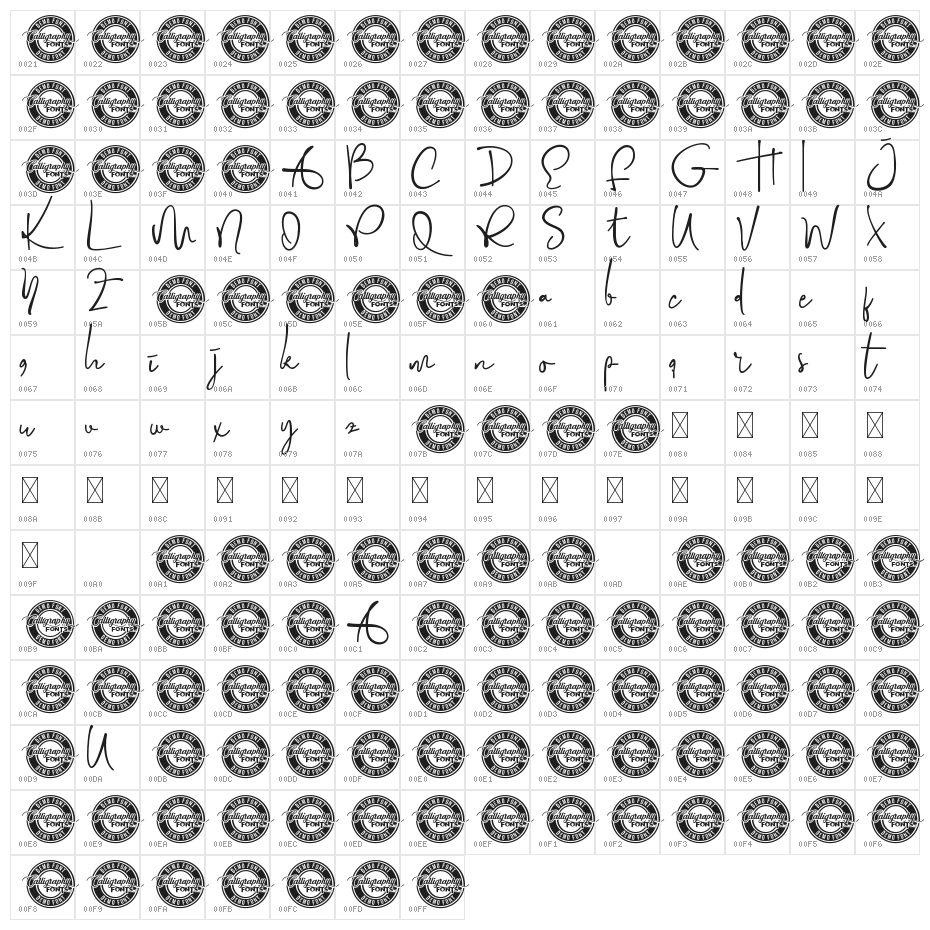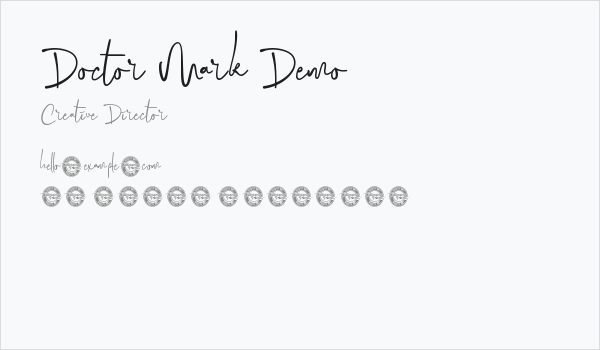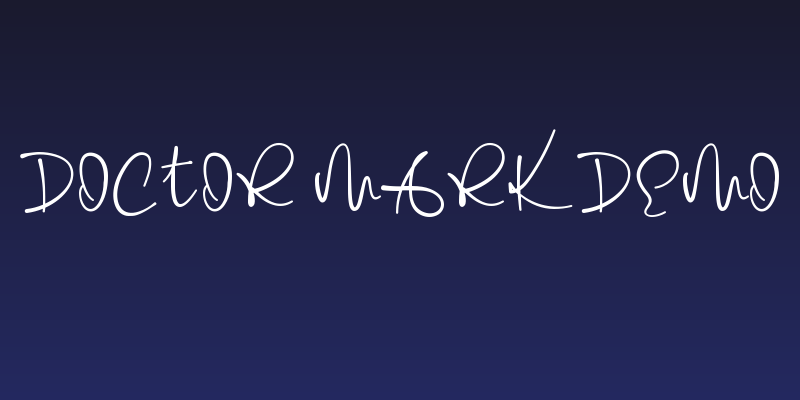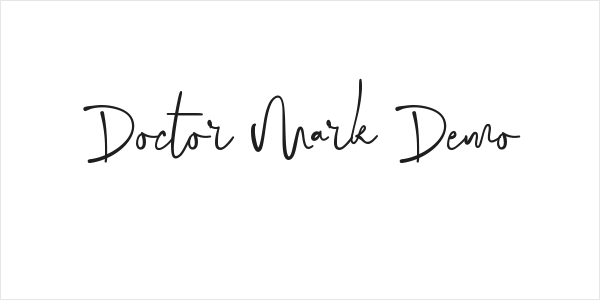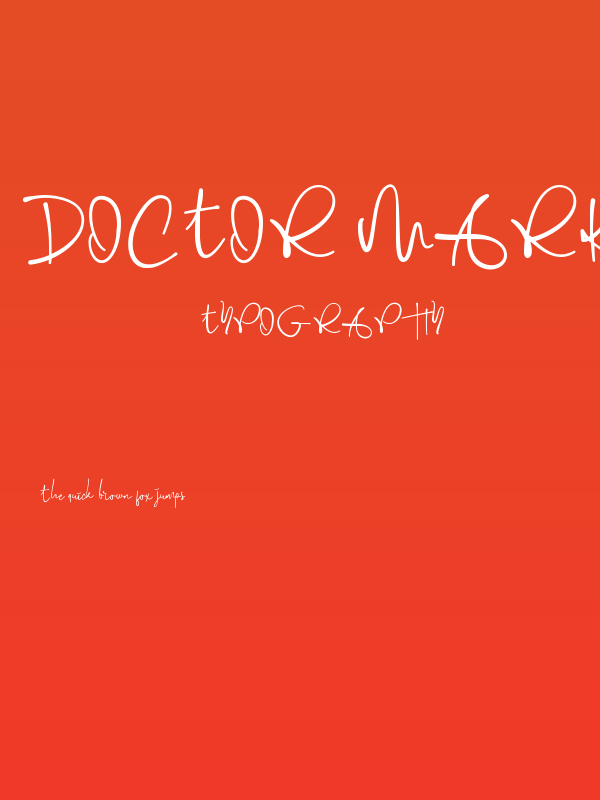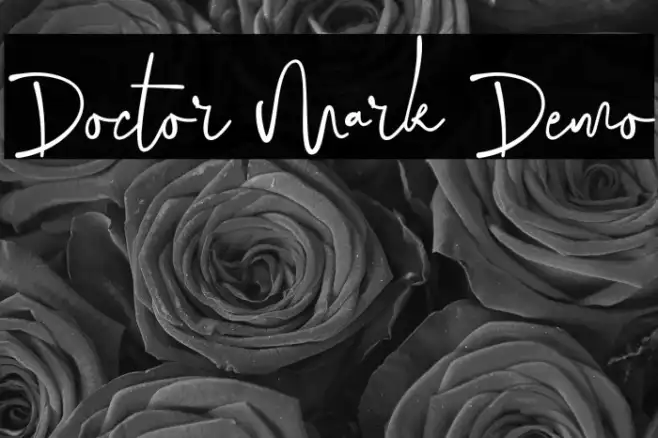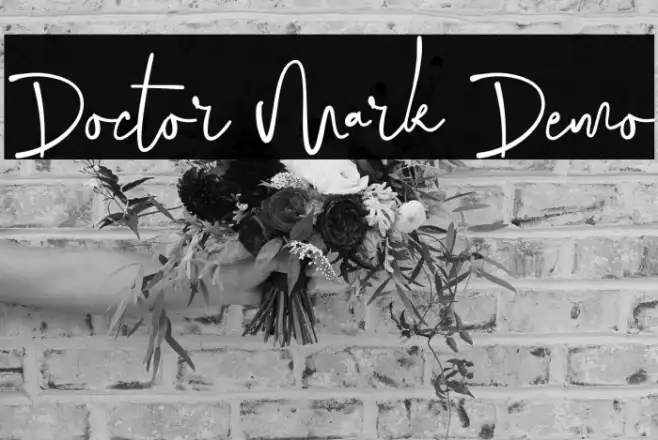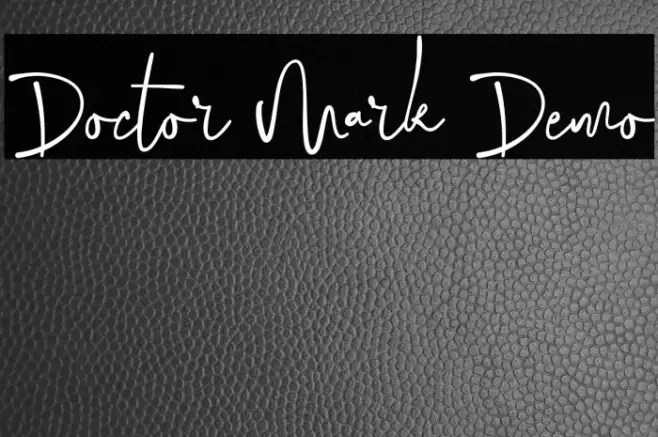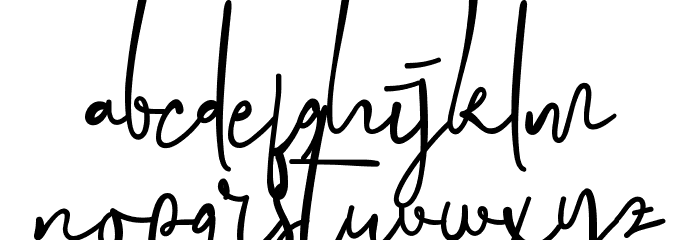
Doctor Mark Demo Font
Doctor Mark Demo Description
This font features a dynamic and expressive handwritten style, characterized by its fluid and natural strokes. The uppercase letters exhibit a playful and casual appearance, with varying heights and angles that add a sense of movement and energy. The lowercase letters maintain this lively aesthetic, with some characters extending below the baseline, enhancing the font's organic feel. The overall design is reminiscent of quick, artistic handwriting, making it ideal for projects that require a personal touch. The font's unique style is further emphasized by its irregular character spacing, which contributes to its informal and approachable nature.